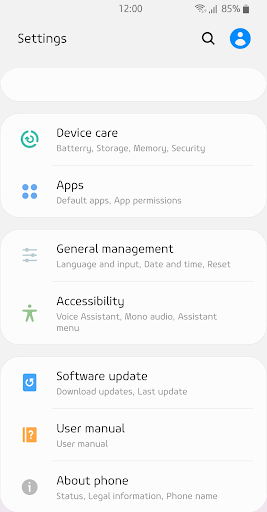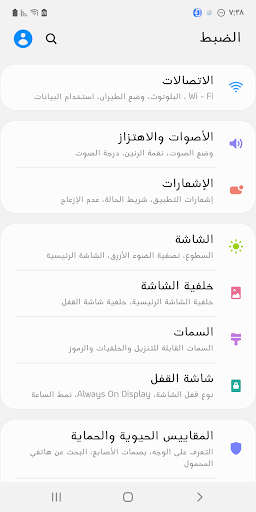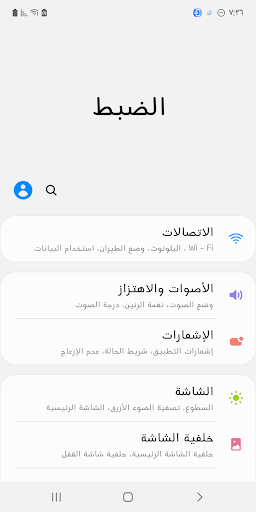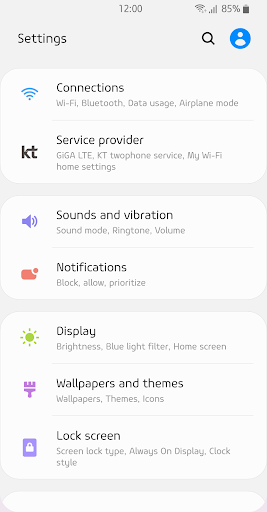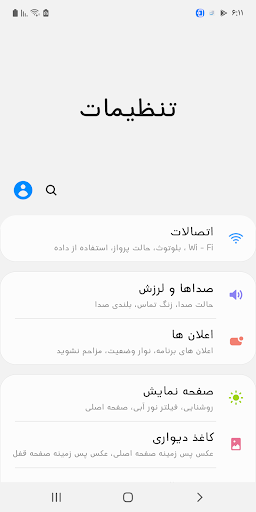
ZF Cologne
It's a design font that doesn't change much in the thickness of the sans serif style.
It shows a comfortable and stable writing flow with a modern shape and a round finish.
The scent that spreads Cologne, the good scent from you.
Before I knew it, he came up to me and grabbed me
I keep thinking about you even when we're apart. Your scent lingers in my mind.
This font contains standard Arabic and Persian Urdu, and contains basic Latin.
It has a structure optimized for mobile environment and shows a stable interface and comfortable text lines.